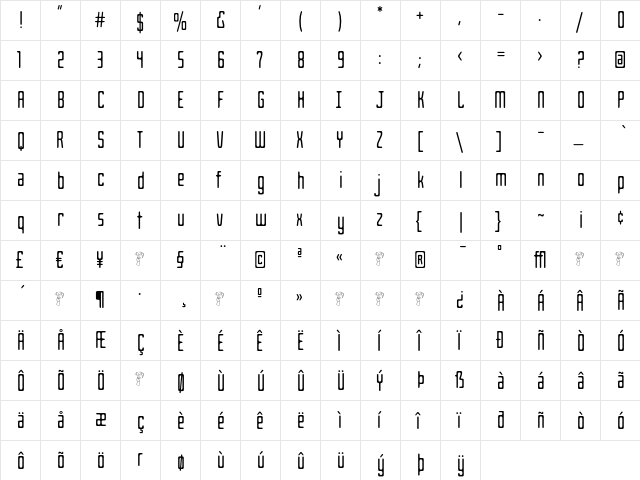
Gangly Regular
Design Context for Gangly Typeface
Gangly takes a measured approach to typography — its balanced proportions and neutral character make it a reliable workhorse for both digital and print work.